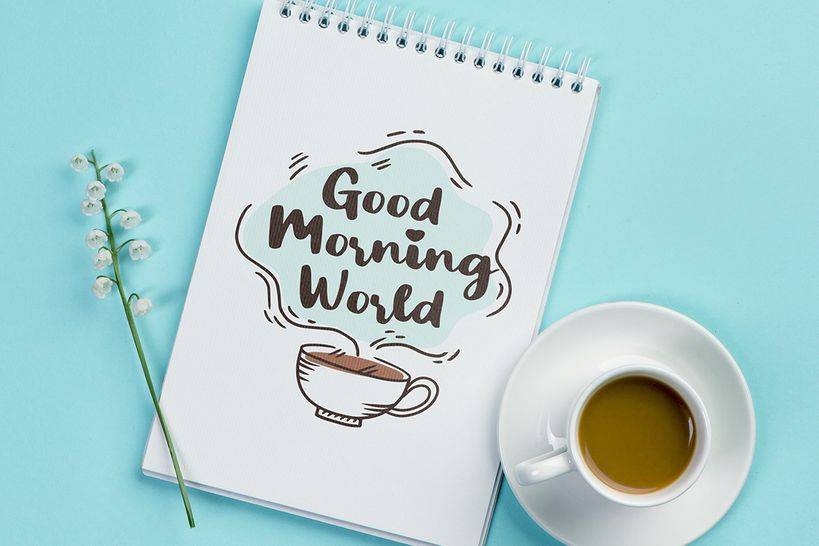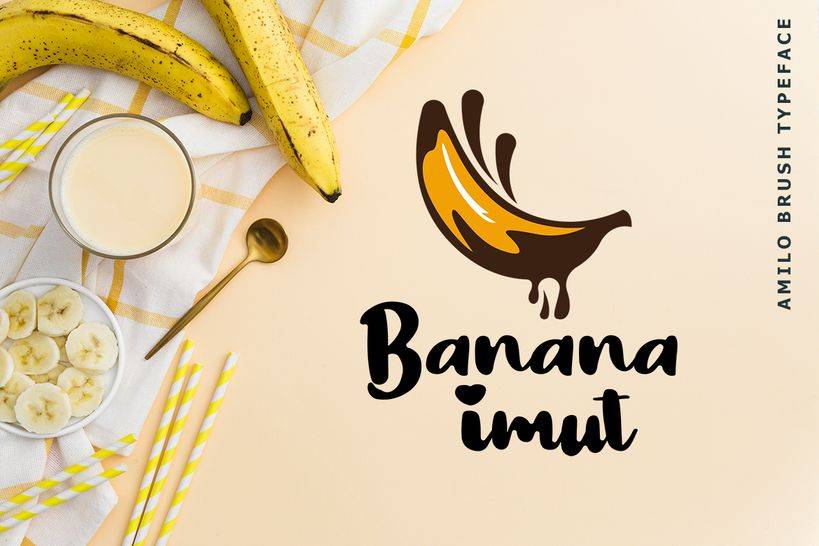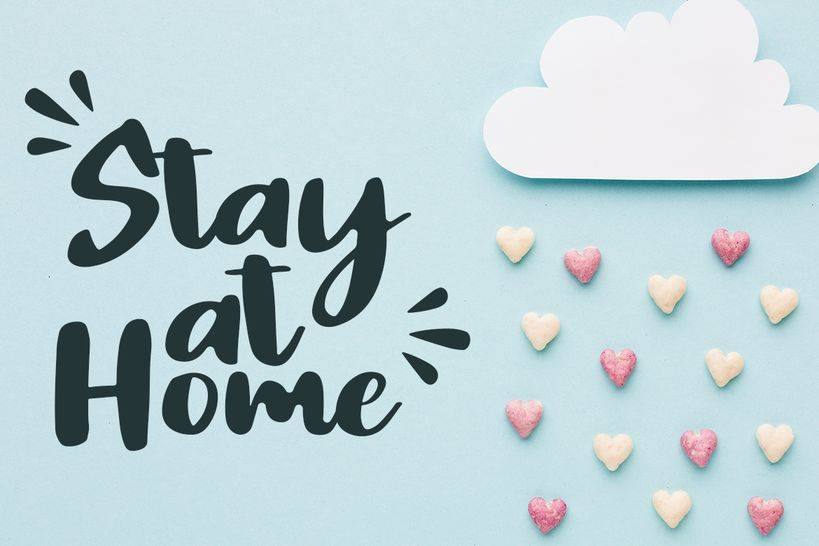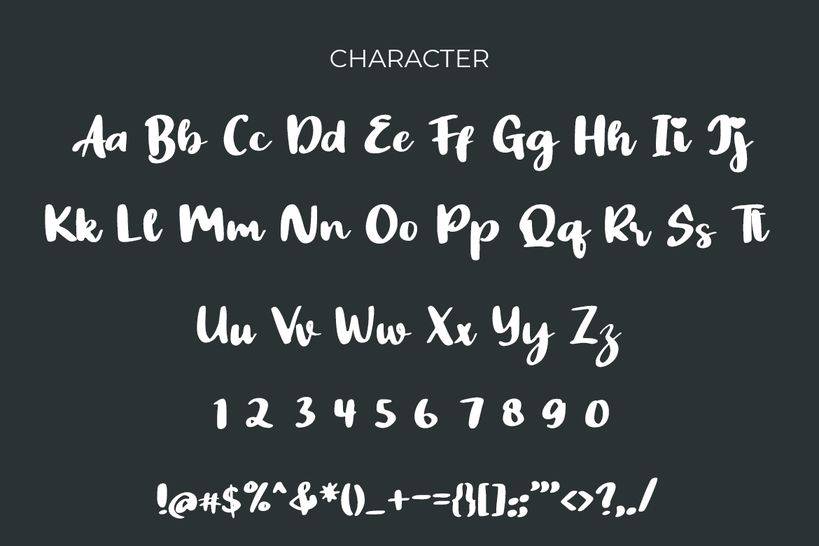
Amilo is a playful and charming script font with bold, rounded strokes and a friendly, handwritten feel. Its lively letterforms and whimsical touches, like the heart-shaped dot on the "i," make it perfect for casual, fun branding, invitations, or social media graphics where a warm and approachable vibe is desired. This font adds personality and cheerfulness to any design needing a lively, crafted look.
Amilo Font
About Amilo Font
| Font family | Amilo Font |
| Designer | Ana Natalia |